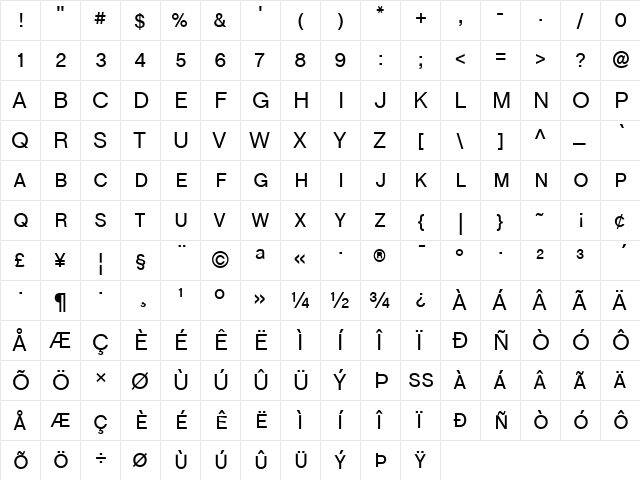
ChaletBookTTSC Regular Font Preview
ChaletBookTTSC Regular
ChaletBookTTSC Regular Font Details
| Foundry | House Industries/Brand Design Co. Inc, |
| Designer | House Industries |
Design Context for ChaletBookTTSC Typeface
ChaletBookTTSC takes a measured approach to typography — its balanced proportions and neutral character make it a reliable workhorse for both digital and print work.